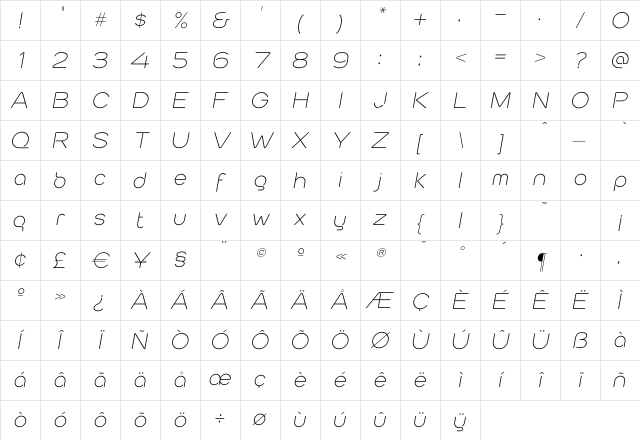
CabourgLight Oblique Regular
Design Context for CabourgLight Oblique
CabourgLight Oblique is a composed and adaptable typeface that performs quietly and consistently across a wide range of design contexts. The slanted form adds forward momentum and visual energy. Its slender proportions lend an understated elegance to any composition.
Pro Tip: Use CabourgLight Oblique for emphasis, pull quotes, and subheadings where its slanted energy can add rhythm to the layout.